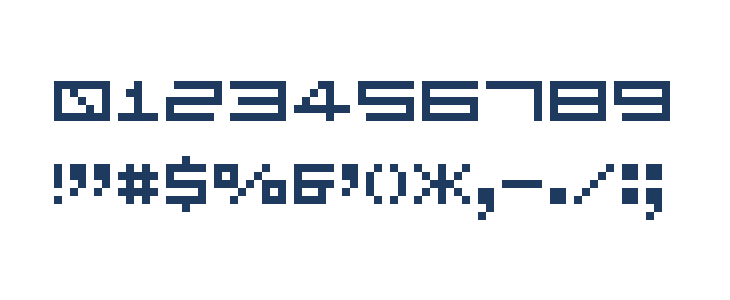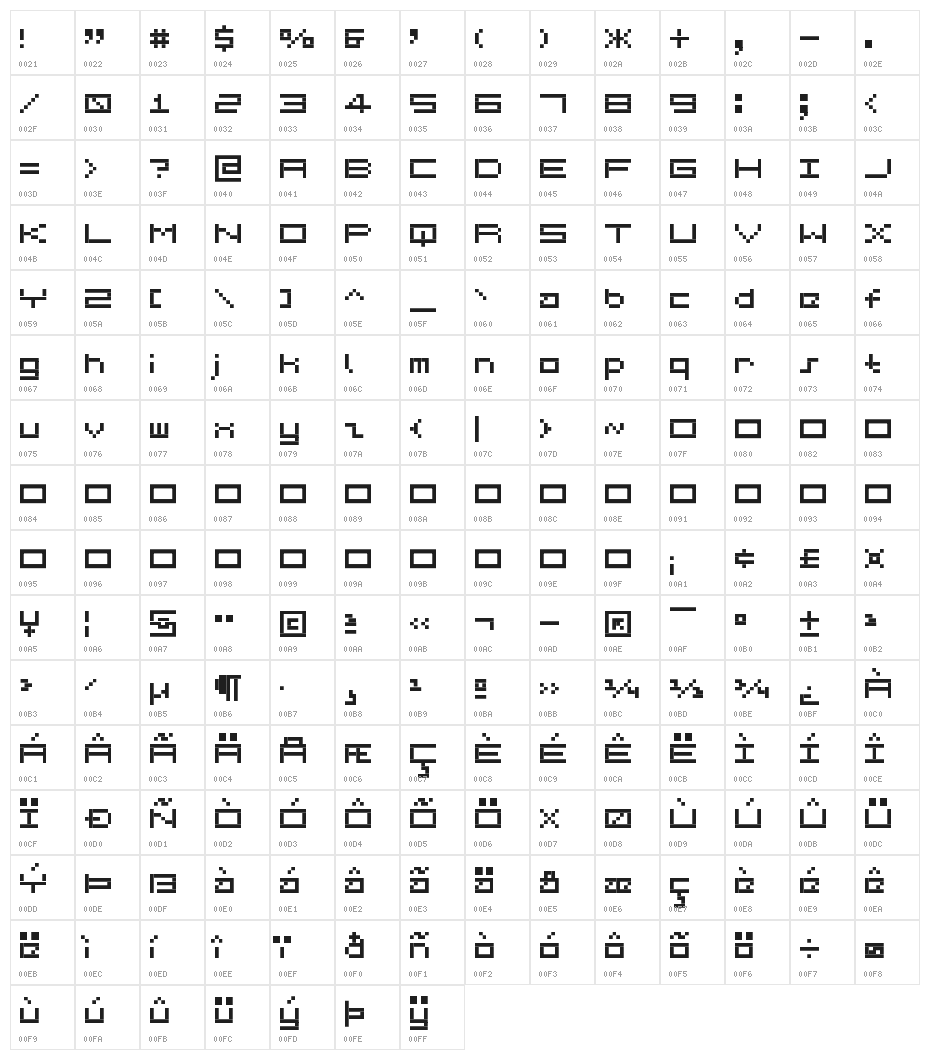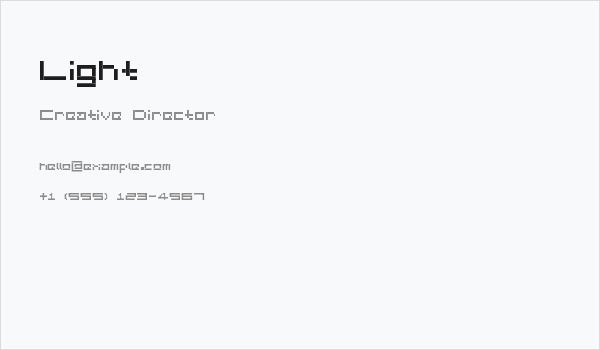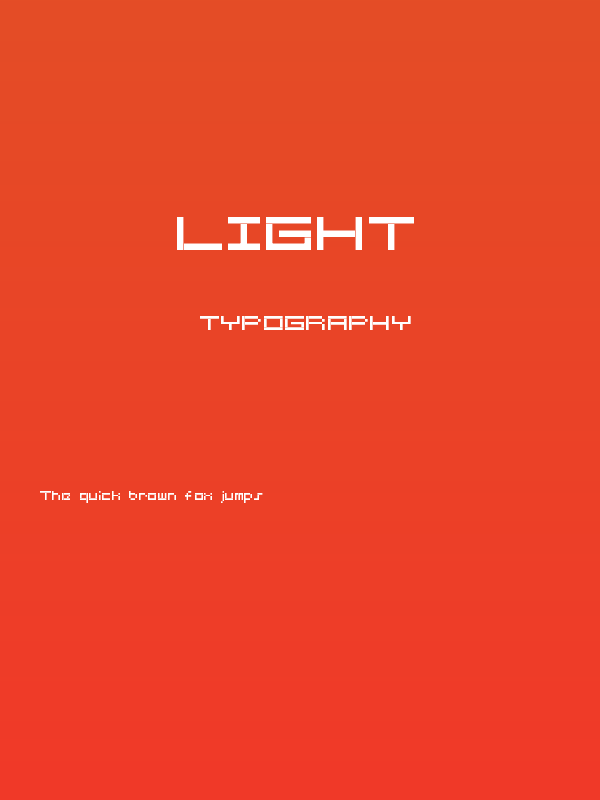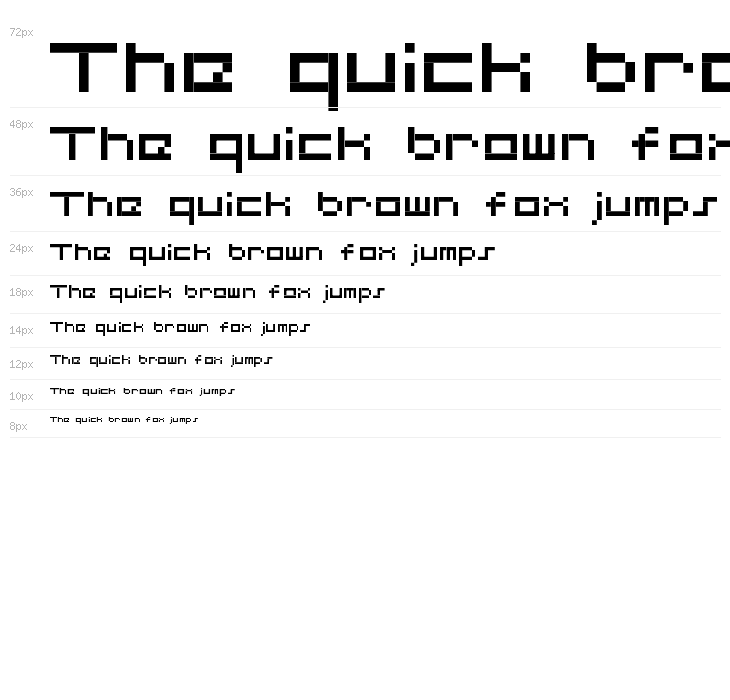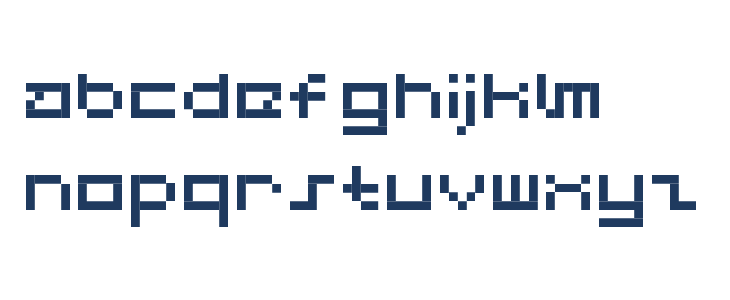
Light Font
Light Description
This font features a pixelated, blocky design reminiscent of early digital displays and retro video games. Each character is constructed with a grid-like precision, giving it a distinctly digital and geometric appearance. The uppercase and lowercase letters maintain a consistent height and width, emphasizing uniformity and simplicity. Numbers and special characters follow the same pixelated style, ensuring a cohesive look across all glyphs. The font's design is straightforward, with no curves or embellishments, making it ideal for projects that require a digital or retro aesthetic.
| Overall Style | Retro, Digital |
| Use Case | Headlines, Logos, Digital Art |
| Proposed Projects | Ideal for video game design, digital art projects, retro-themed posters, and any creative work that requires a nostalgic digital look. |